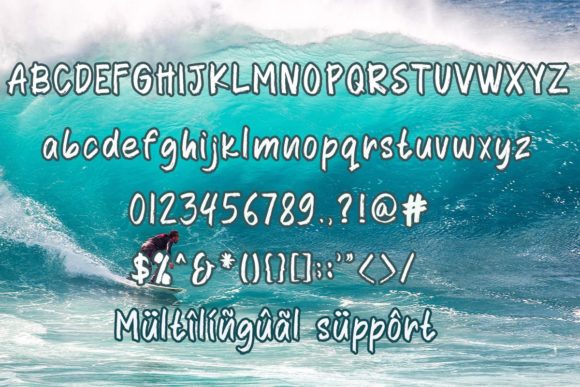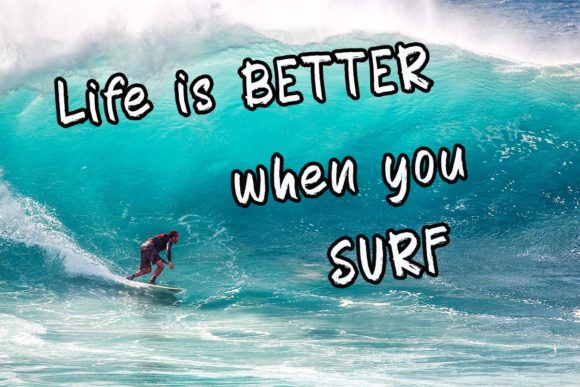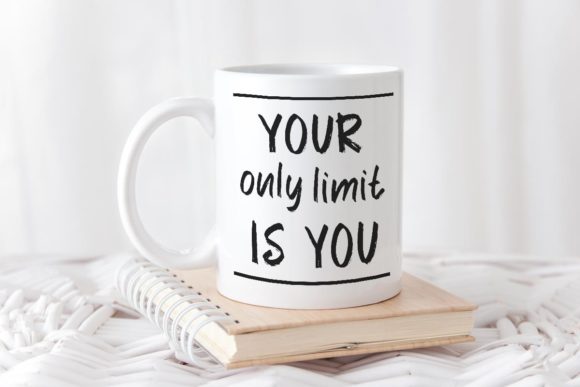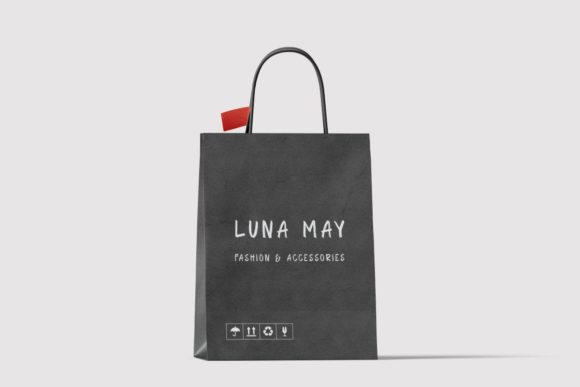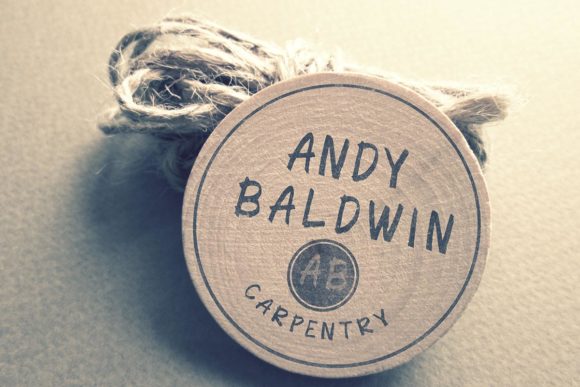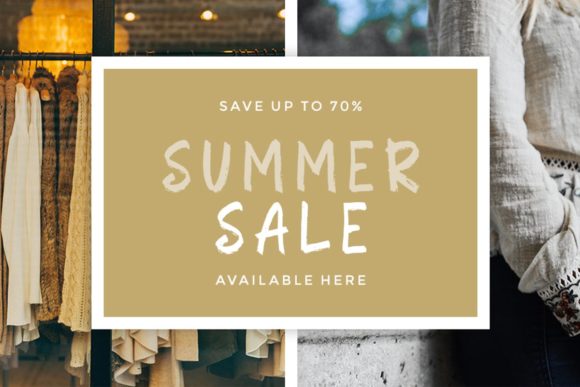
Discover the Unique Charm of Big Surf Font: Elevate Your Designs with a Lovely Brush Pen Touch
In the vast ocean of typography, there exist fonts that stand out for their uniqueness and ability to capture the essence of creativity. Big Surf Font is one such gem that has been making waves in the design community. Created with the help of a lovely brush pen, this handwritten font brings a touch of personalization and warmth to any project it’s a part of. In this article, we’ll dive deep into the world of Big Surf Font, exploring its characteristics, uses, and how it can elevate your designs to new heights.
The Making of Big Surf Font
Big Surf Font is the result of a meticulous process that involved the use of a brush pen, a tool that gives it a distinctive, handcrafted feel. This method of creation lends the font its unique texture and fluidity, characteristics that are often lost in more traditional typography. The use of a brush pen in its creation means that Big Surf Font carries a certain organic, almost whimsical charm that can add a personal touch to a wide range of projects.
Key Features of Big Surf Font
- Handwritten with a Personal Touch: The font’s handwritten nature gives it a personal and intimate feel, making it perfect for projects that require a human touch.
- Unique Texture: The texture achieved through the use of a brush pen is unique and adds depth to the font, making it stand out in any design.
- Versatility: Big Surf Font can be matched with an incredibly large set of projects. Whether you’re working on a logo, a poster, a website, or any other design, this font can be seamlessly integrated.
- Easy to Read: Despite its unique and artistic nature, Big Surf Font remains easy to read, making it functional as well as beautiful.
Applications of Big Surf Font
The versatility of Big Surf Font is one of its most appealing qualities. Here are some of the many ways you can use this font to enhance your designs:
- Branding and Logos: Use Big Surf Font to create a logo that stands out and communicates a friendly, approachable brand image.
- Posters and Flyers: Add a creative and eye-catching element to your posters and flyers with this unique font.
- Web Design: Big Surf Font can add a personal touch to your website’s design, making it more engaging for visitors.
- Social Media Graphics: Stand out on social media with graphics that feature Big Surf Font, perfect for quotes, announcements, and more.
- Crafting and DIY Projects: For crafters and DIY enthusiasts, Big Surf Font can add a professional yet personal touch to project titles, descriptions, and packaging.
Tips for Using Big Surf Font Effectively
To make the most out of Big Surf Font, consider the following tips:
- Pair it Wisely: Combine Big Surf Font with simpler fonts to create contrast and make your design more dynamic.
- Play with Colors: The right color scheme can enhance the beauty of Big Surf Font. Experiment with colors that complement the theme of your project.
- Consider Size and Weight: Make use of the font’s various sizes and weights to create visual hierarchy and add emphasis where needed.
Big Surf Font is more than just a typeface; it’s a tool for creativity and self-expression. Its unique, handwritten style, coupled with the charm of a brush pen, makes it a valuable addition to any designer’s toolkit. Whether you’re a professional designer or a crafting enthusiast, Big Surf Font offers endless possibilities for creating standout designs. So, why not give it a try and see how it can transform your projects?
Incorporating Big Surf Font into your designs is a step towards adding a touch of personality and uniqueness. With its versatility, readability, and undeniable charm, Big Surf Font is set to make a splash in the world of typography and design.